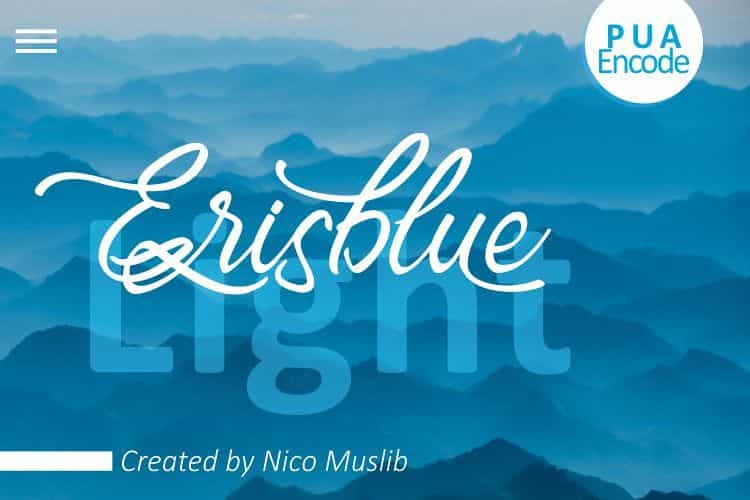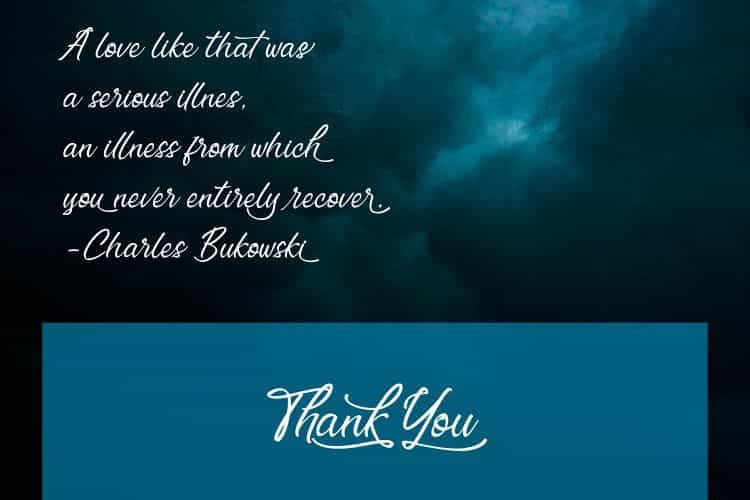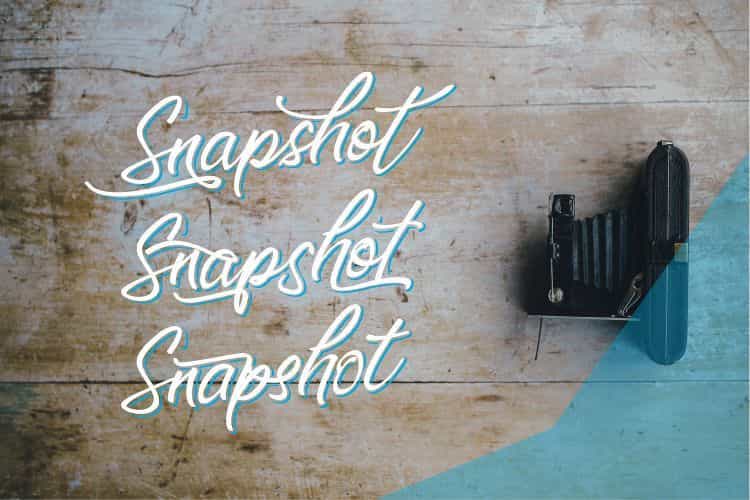
Erisblue Light is a great font for contemporary hand lettering logo or the headline display. Suitable for any design need: Contemporary advertising, poster, quotation, logo, brand, cover of a book, magazine, postcard, mug, cushion, t-shirt etc.